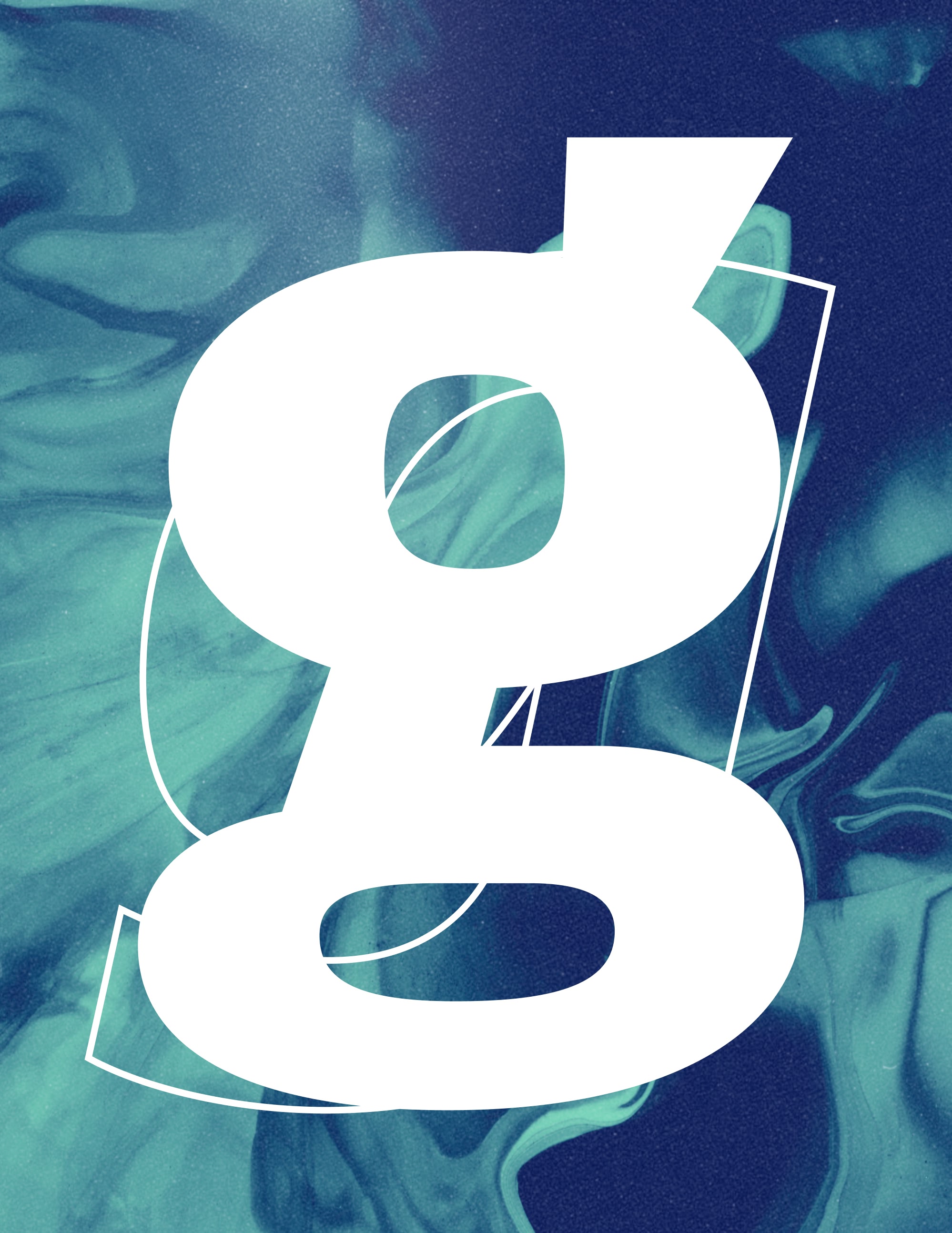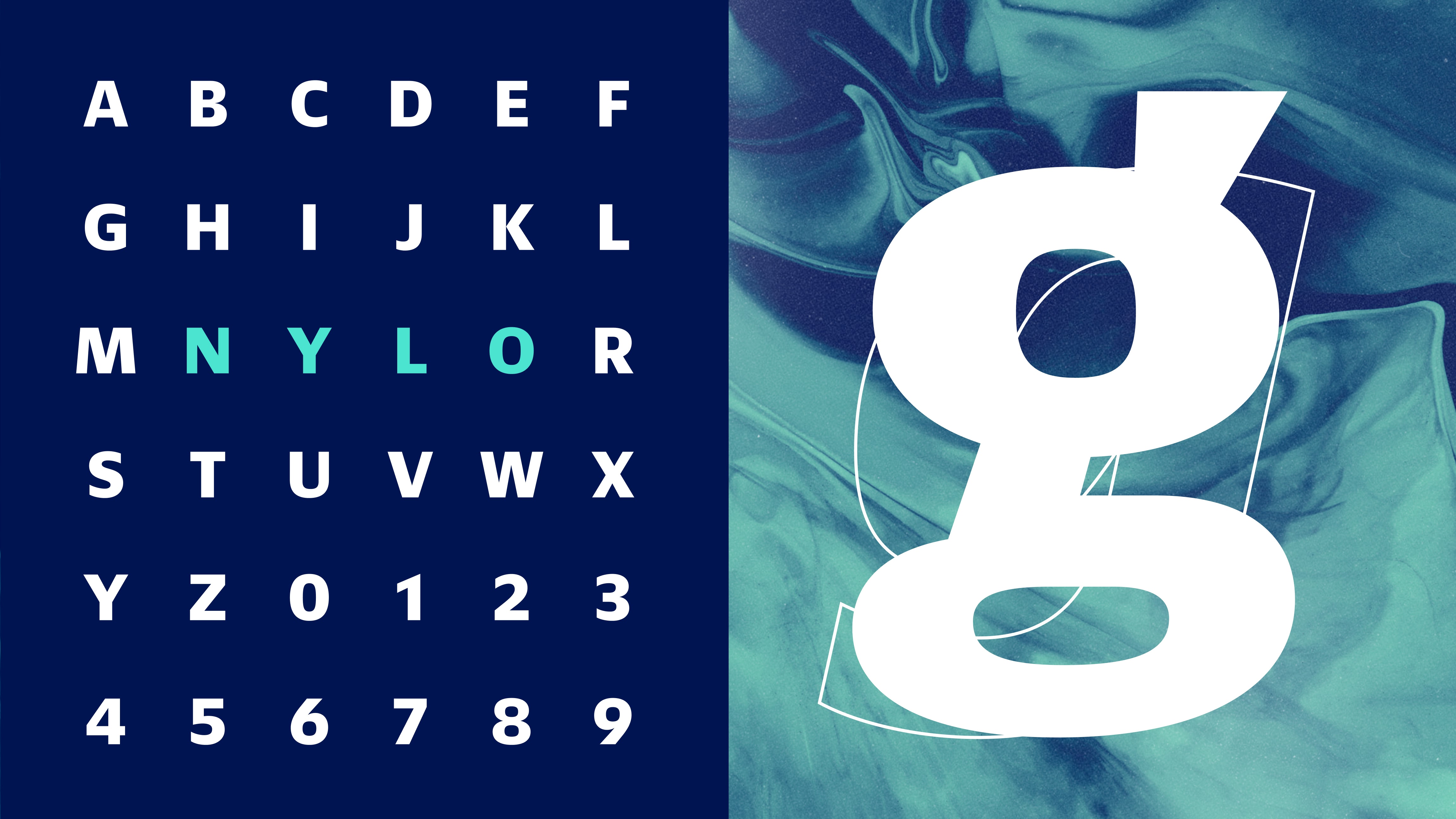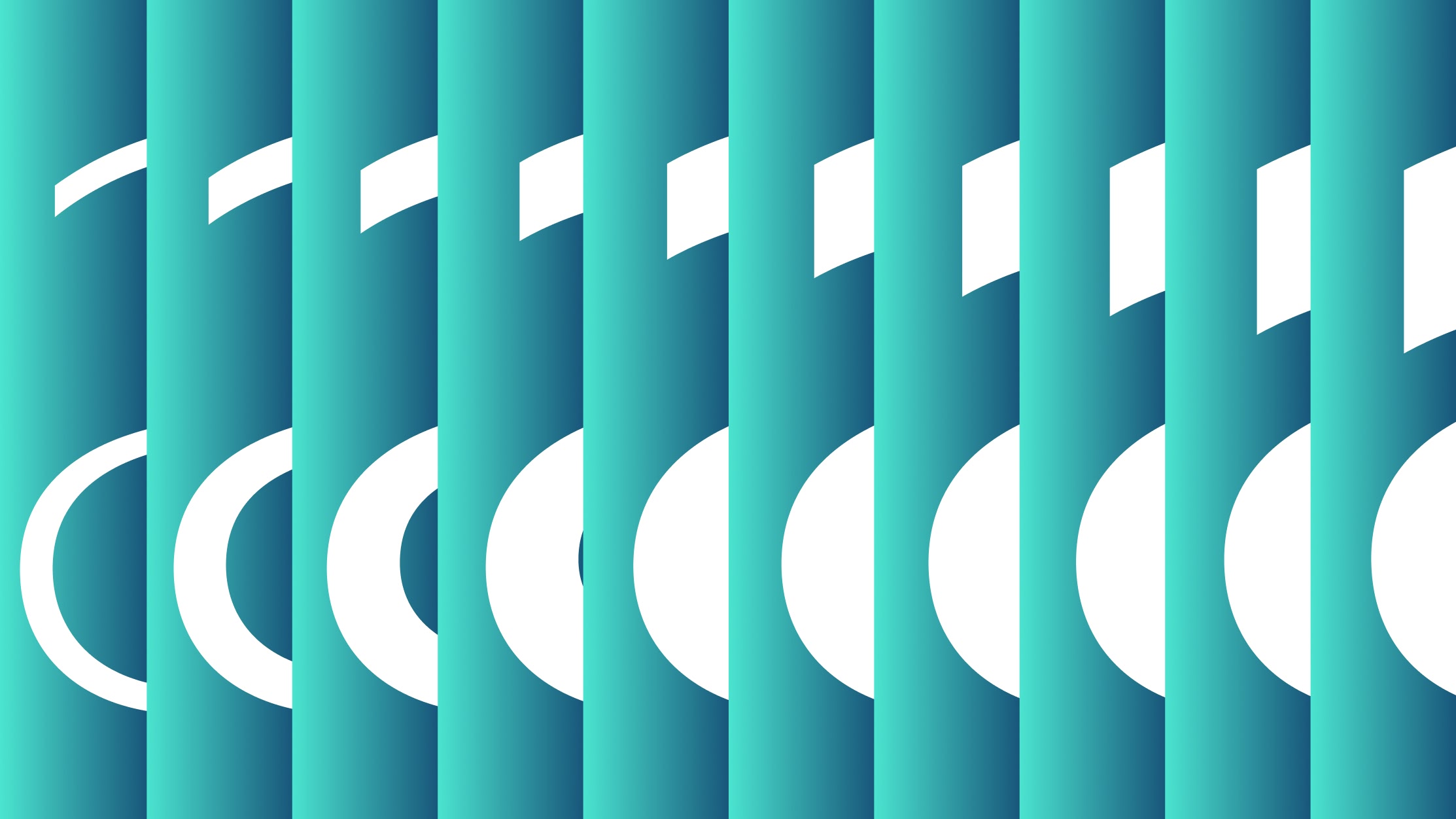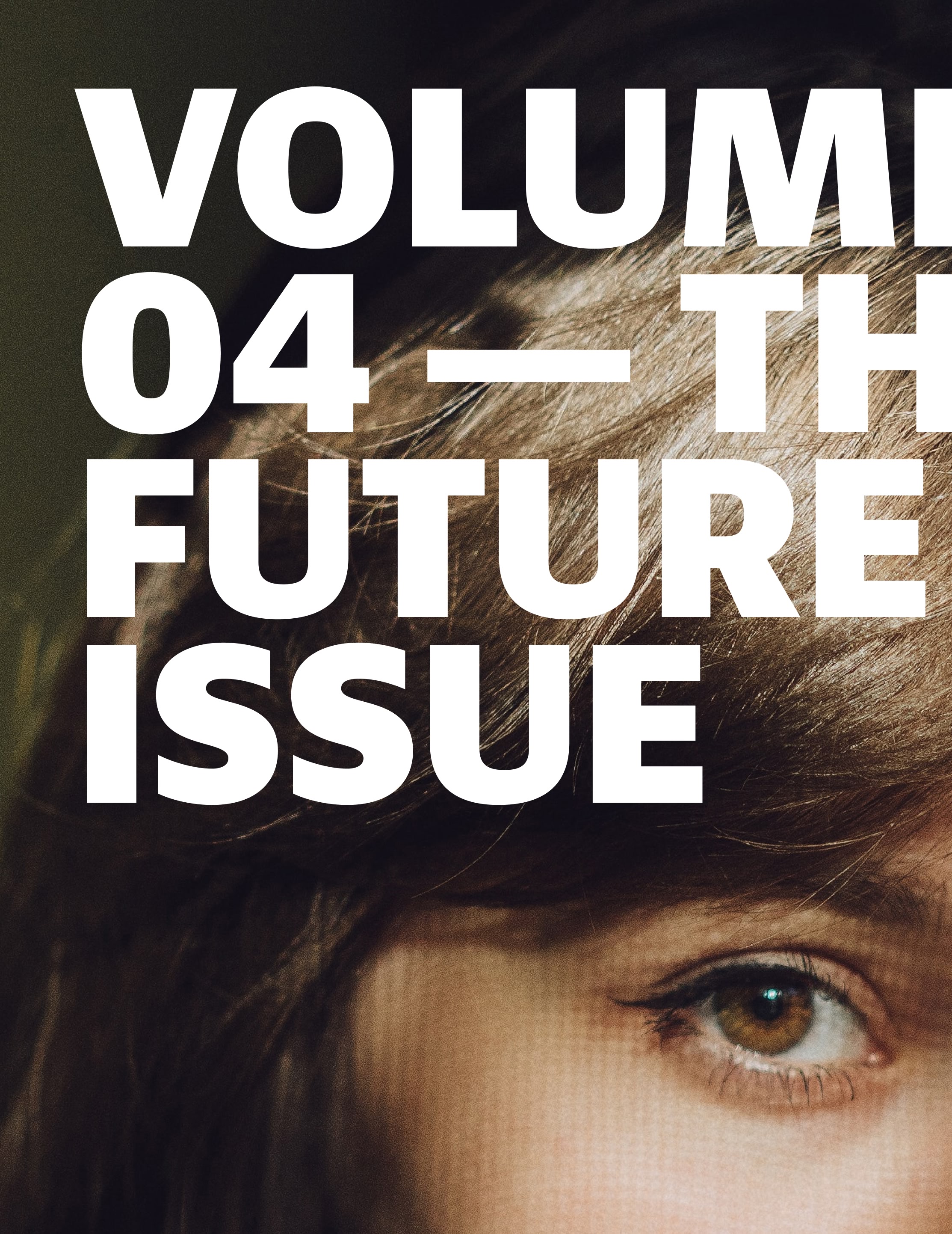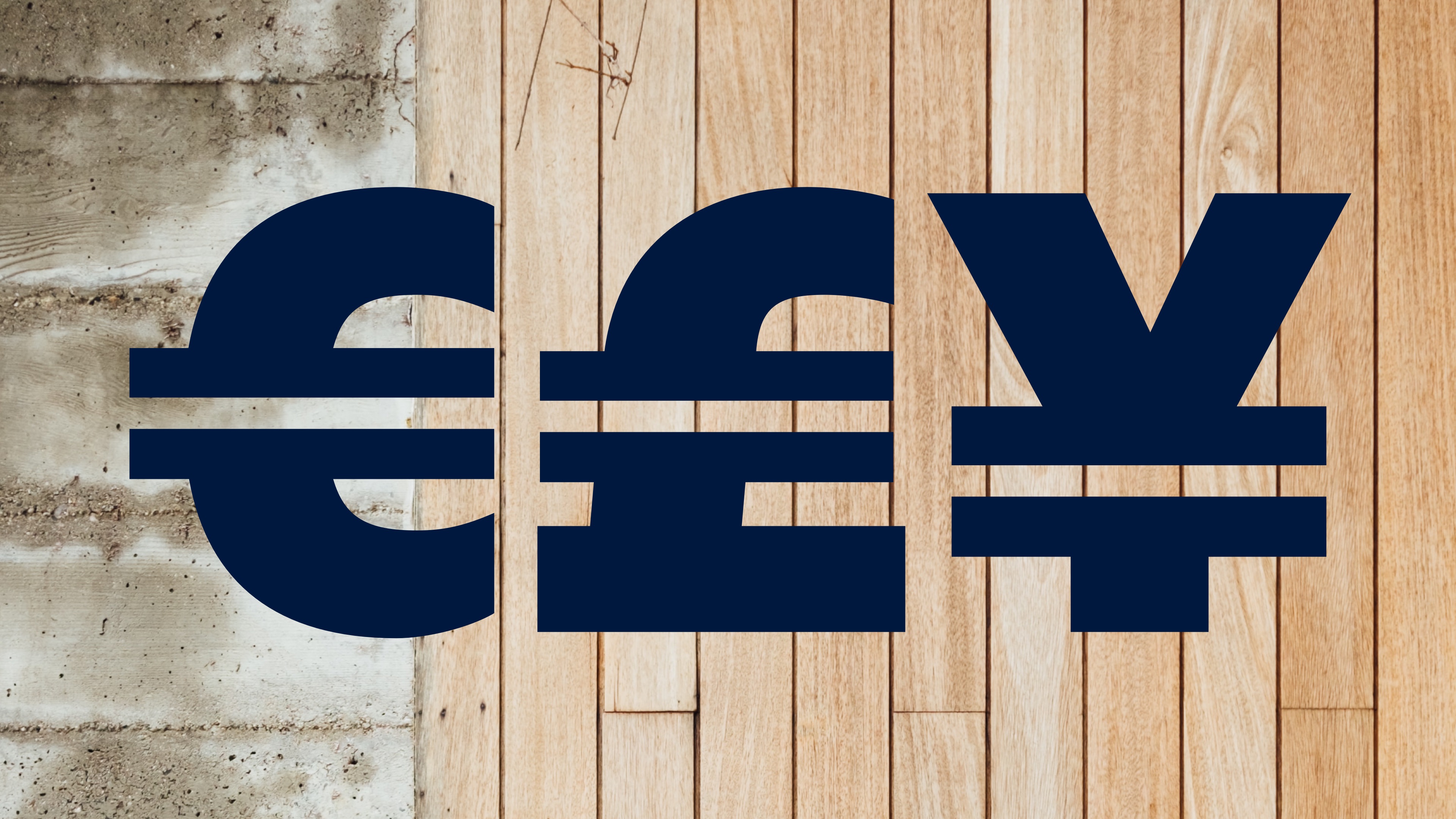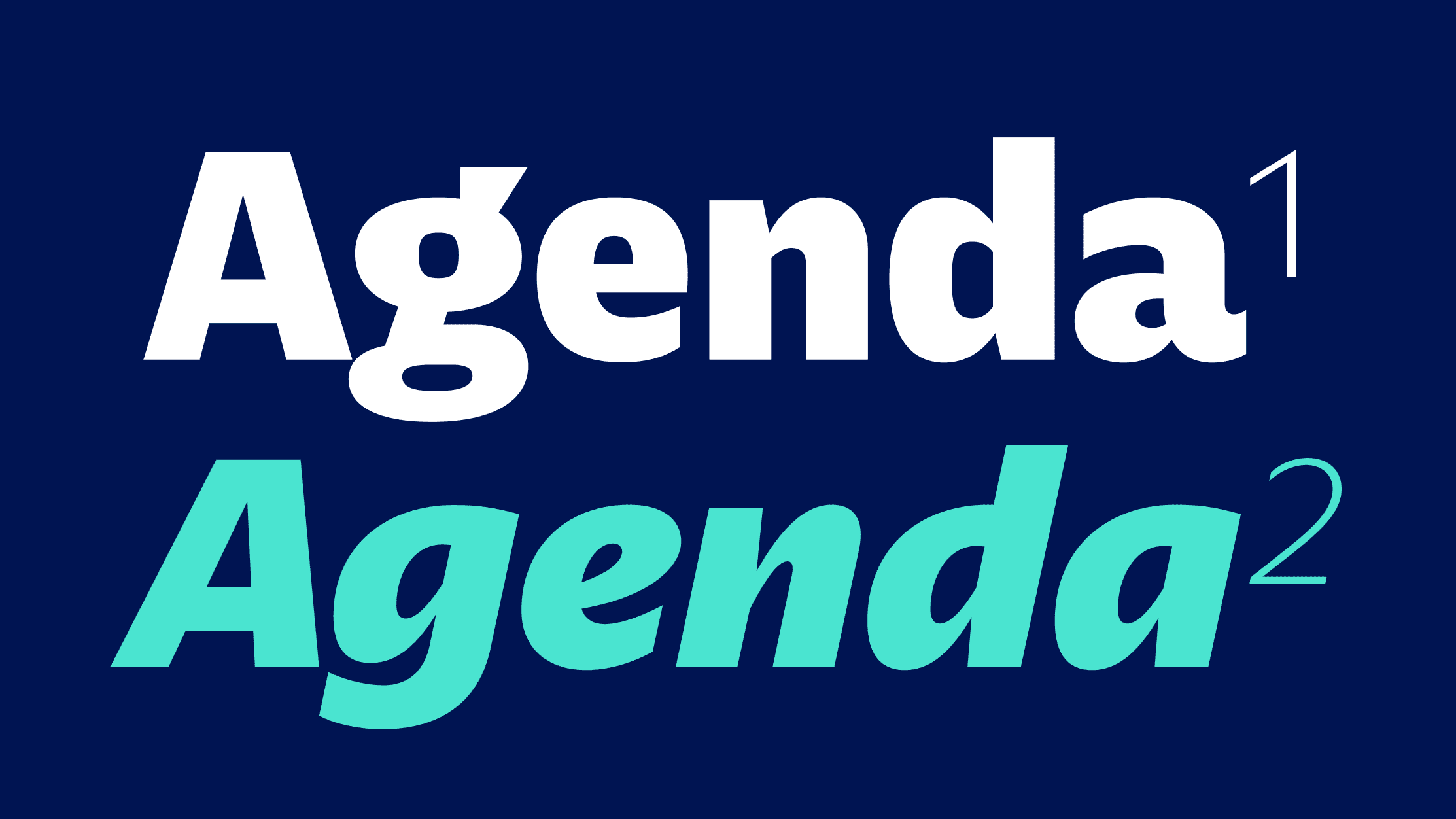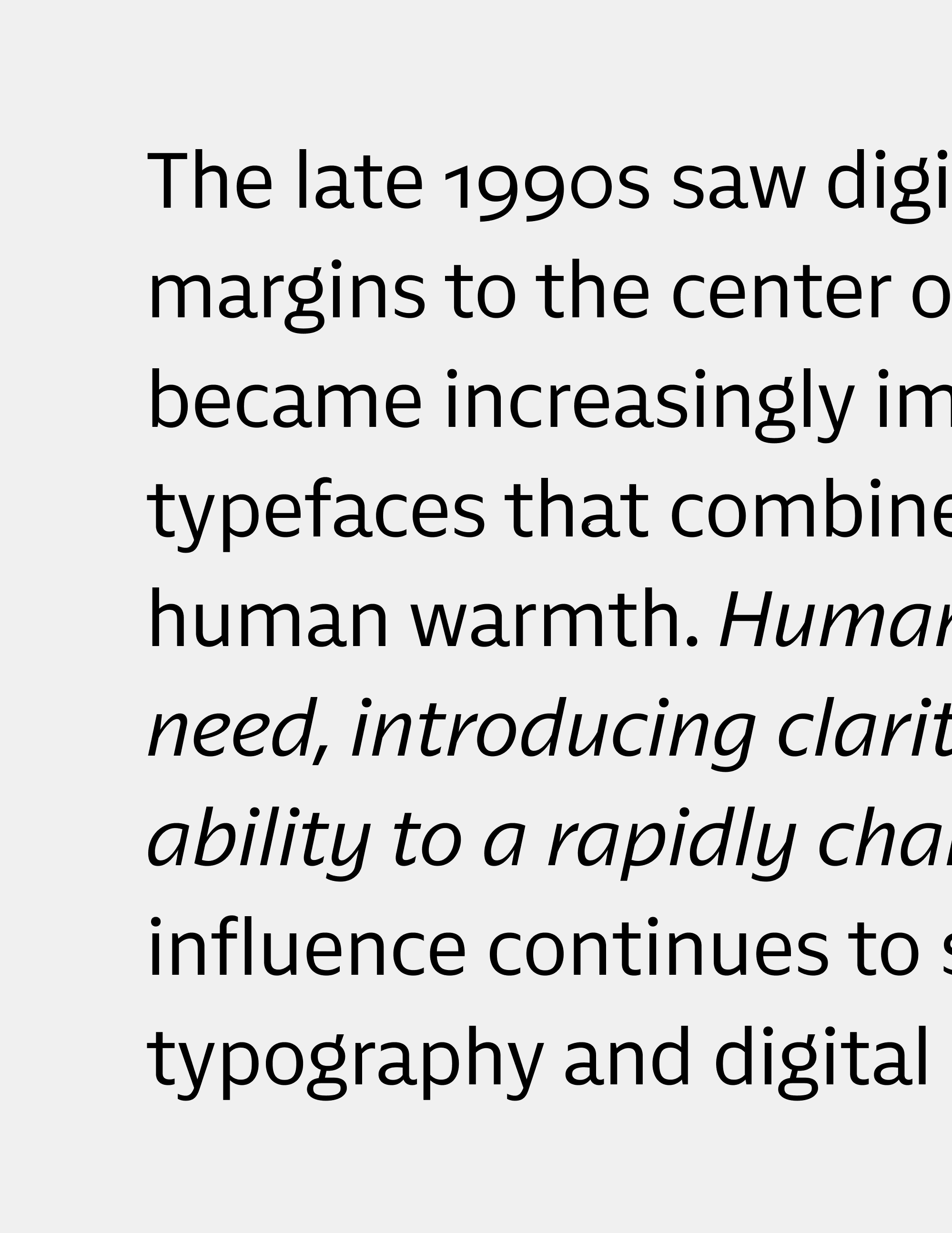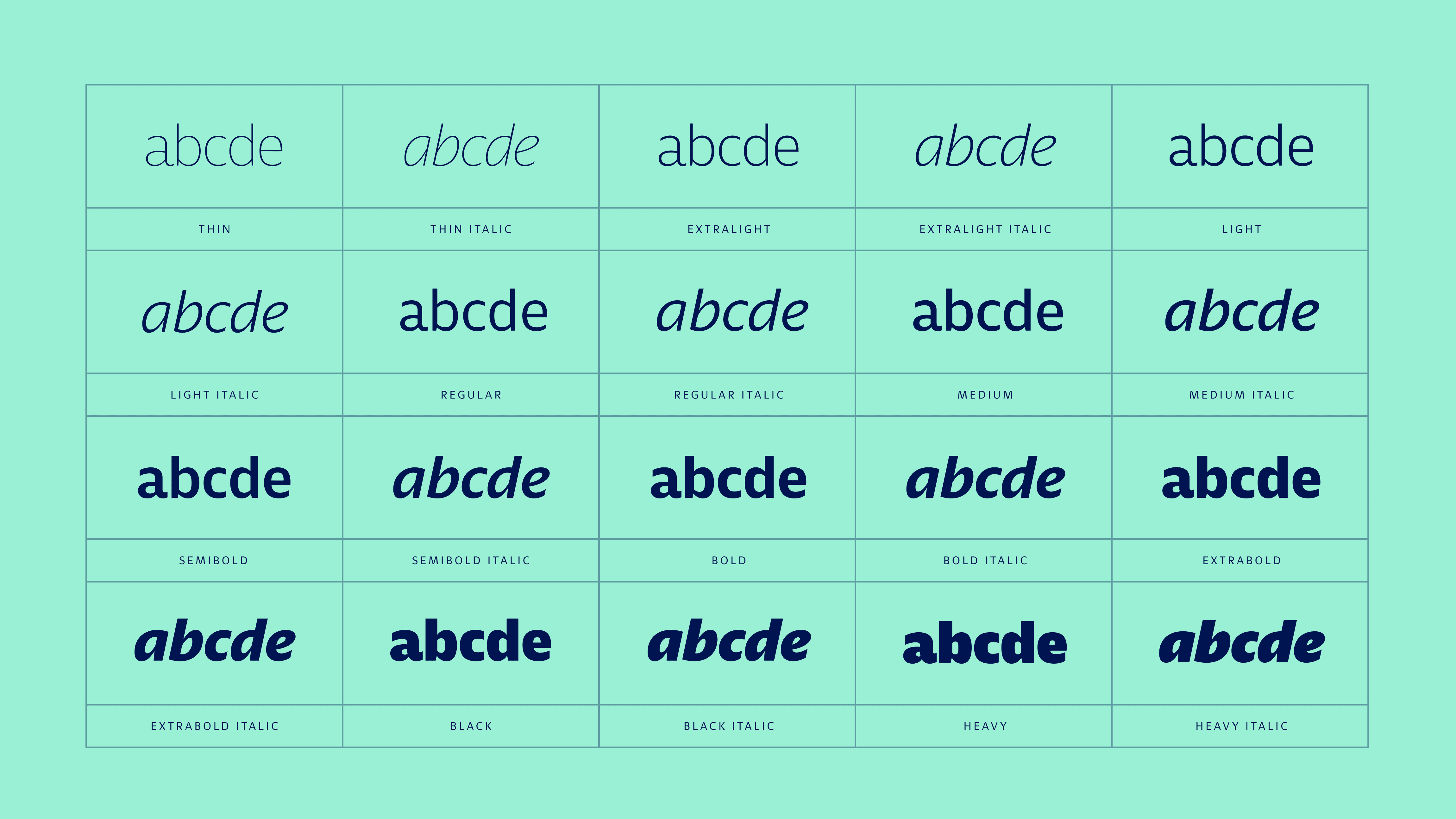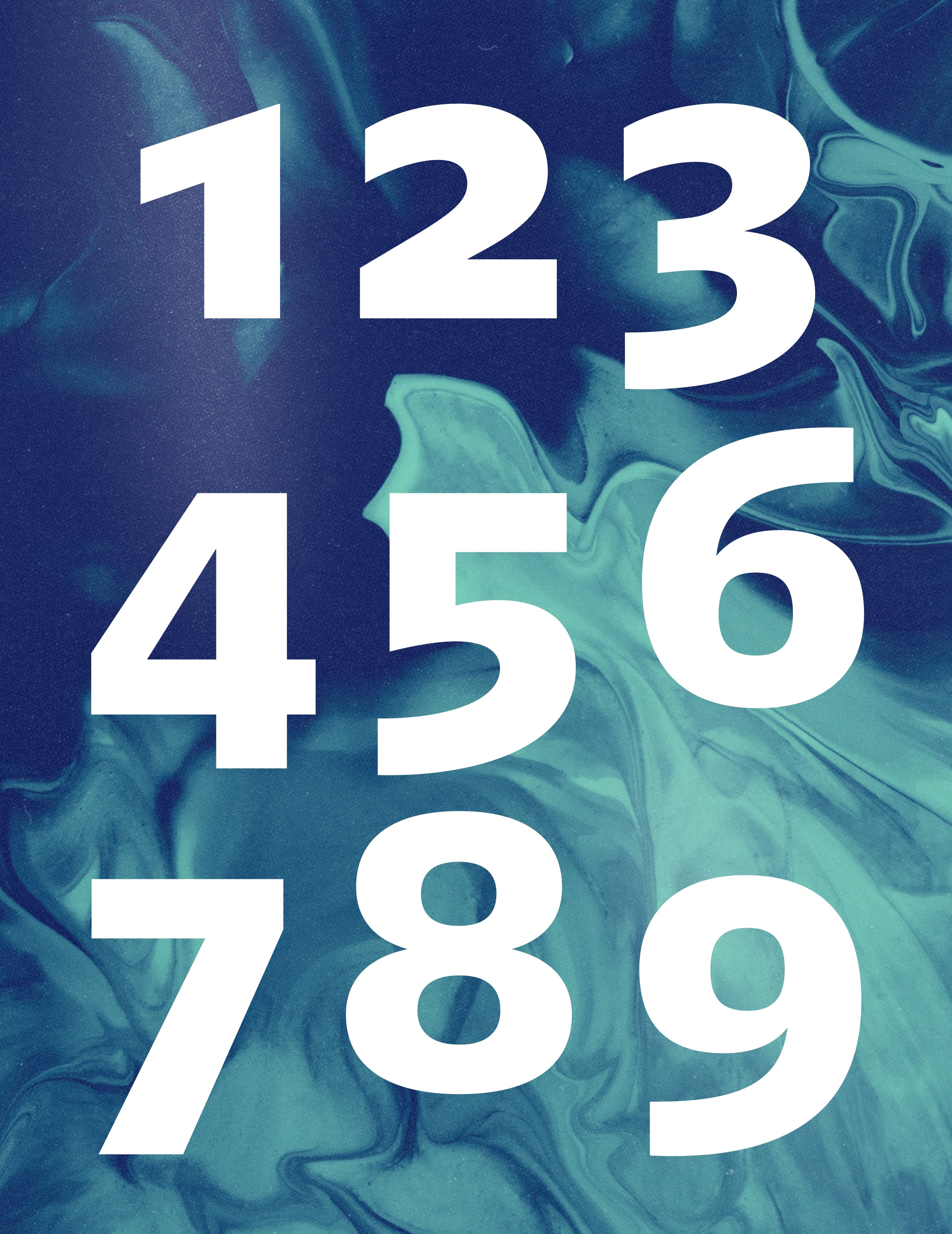
Nylo revisits the tradition of humanist sans-serifs through a contemporary perspective. Rooted in warmth, clarity, and readability, it combines organic influences with refined precision — shaping a versatile family for modern branding, editorial design, and digital communication.